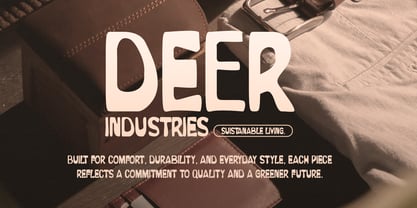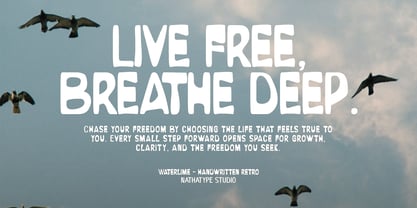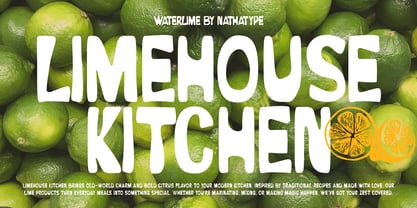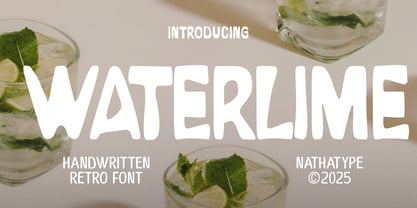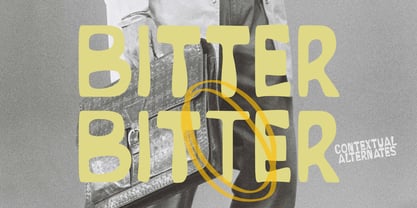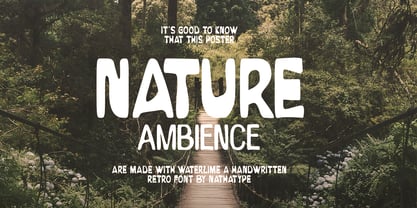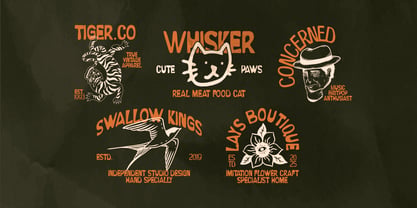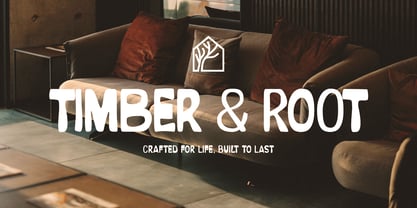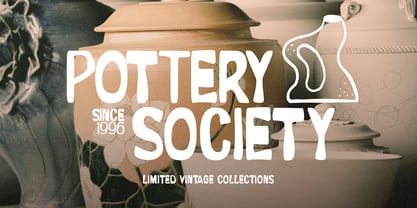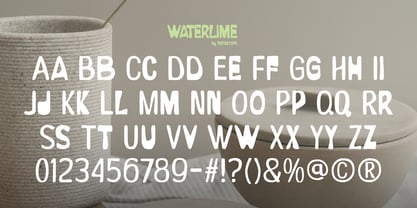
Waterlime
by Nathatype
The Waterlime Font Family was designed by Donis Miftahudin and published by Nathatype. Waterlime contains 1 styles. More about this family
Watterlime is a handwritten font inspired by classic vintage lettering. The vintage style of Watterlime gives your designs a timeless, slightly retro feel, while the bold weight ensures strong visibility and impact. Each letter features subtle irregularities and uneven contours, mimicking the natural movement of handwriting and giving your text a genuine, human touch. This makes Watterlime perfect for projects that value originality, texture, and nostalgic charm. In addition, enjoy the features here. Features: Contextual Alternates Multilingual Supports PUA Encoded Numerals and Punctuations Watterlime fits in logos, quotes, branding, posters, and many more designs. Find out more ways to use this font by taking a look at the font preview. Thanks for purchasing our fonts. Hopefully, you have a great time using our font. Feel free to contact us anytime for further information or when you have trouble with the font. Thanks a lot and happy designing.
Designers: Donis Miftahudin
Foundry: Nathatype